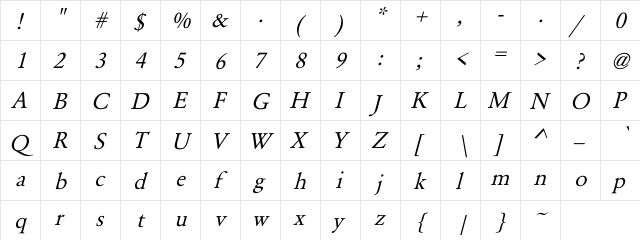
Yearlind Italic
Design Context for Yearlind Typeface
Yearlind offers clean, dependable letterforms without strong stylistic allegiance, making it a practical choice for designers who need flexibility. The slanted form adds forward momentum and visual energy.